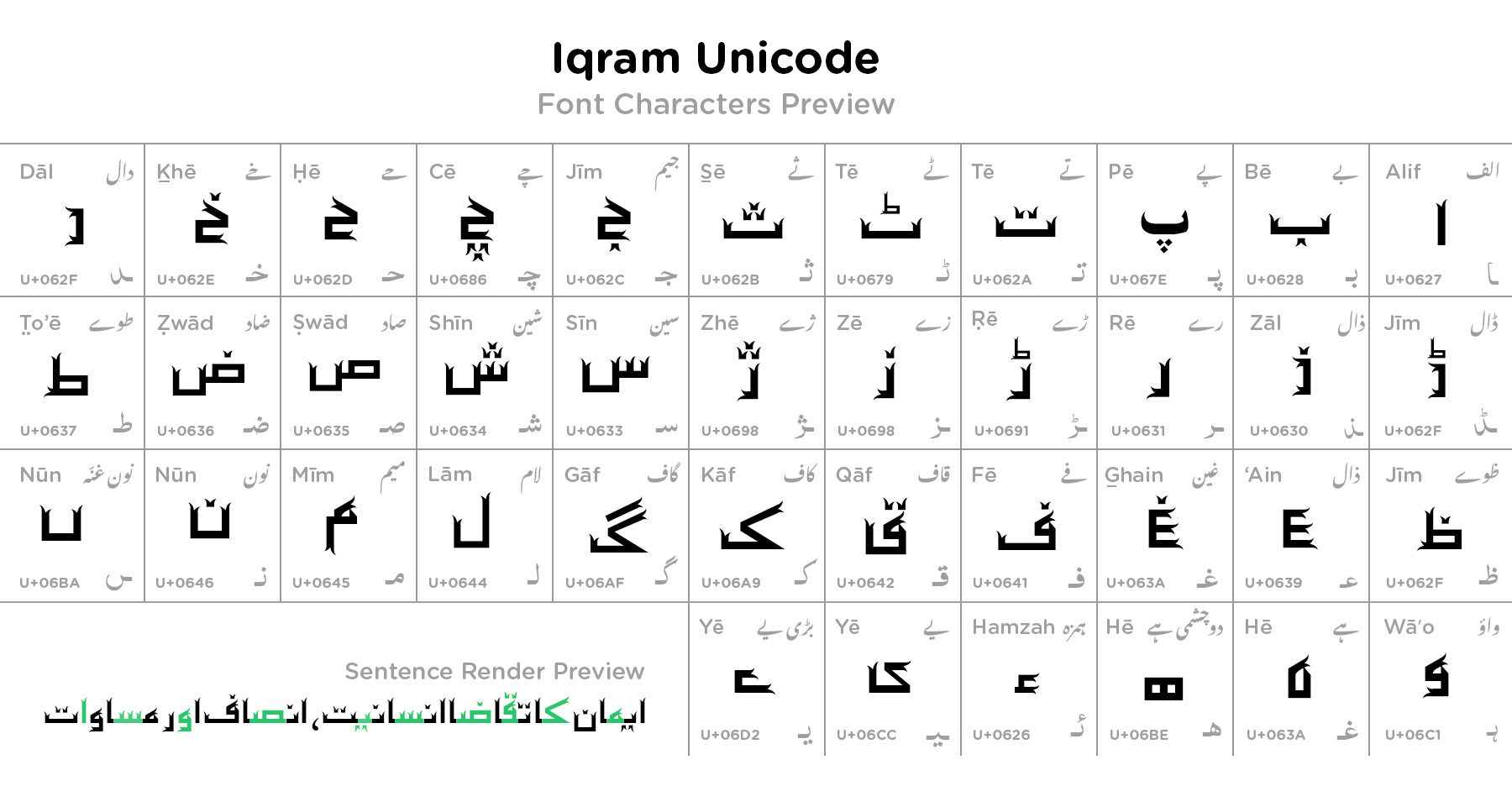
Iqram, developed by Syed Manzar Hasan Zaidi and released by Axis Softmedia Pvt. Ltd., is a highly decorative font characterized by bold, geometric letterforms. Drawing inspiration from the Naskh script with hints of Kufic influence, it presents a unique fusion of tradition and modernity. Featuring 433 characters and 498 glyphs, the font excels in design projects with enough room for editing and tweaking. Also, the font supports multiple languages, including Arabic, Latin, Greek, and more, expanding its applicability across diverse design projects. Its constant thickness and strong strokes contribute to a commanding and dominant presence on the screen.